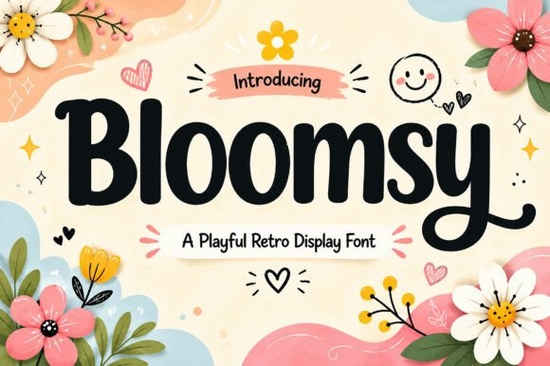
If you're looking for a font that brings a playful and charming vibe to your designs, Bloomsy Font is a great choice. This retro display font is designed to add warmth, charm, and personality to any creative project, making it perfect for a variety of uses.
Why Choose Bloomsy Font for Your Creative Projects?
Bloomsy is all about bringing a friendly and handcrafted feel to your work. Its bold rounded shapes, smooth curves, and unique character details make it stand out. Whether you're working on a logo, branding materials, or social media graphics, this font adds a sweet and cheerful touch that can make your designs more approachable and memorable.
Perfect for a Variety of Creative Uses
Bloomsy is versatile and can be used in many different projects. Here are some of the areas where it shines:
- Logo Design: Create eye-catching logos that leave a lasting impression.
- Branding & Visual Identity: Develop a consistent and appealing brand identity.
- Packaging Design: Add a playful and inviting touch to product packaging.
- Children’s Products: Perfect for creating fun and engaging designs for kids.
- Greeting Cards & Invitations: Make your cards and invitations stand out with a friendly and cheerful look.
- Social Media Graphics: Enhance your social media presence with visually appealing posts.
- Stickers & Labels: Design cute and memorable stickers and labels for your products.
- Posters & Headlines: Create impactful posters and headlines that grab attention.
- Craft Projects: Ideal for adding a personal and handmade touch to your crafts.
- T-Shirt Designs: Perfect for creating fun and unique t-shirt designs.
Font Features That Make It Easy to Use
Bloomsy comes with several features that make it user-friendly and versatile:
- Uppercase and Lowercase Letters: Offers both uppercase and lowercase letters for flexibility in design.
- Numbers & Punctuation: Includes a full set of numbers and punctuation marks for complete text formatting.
- Multilingual Support: Supports multiple languages, making it accessible for a global audience.
- PUA Encoded: Access special characters and glyphs easily, even in software that doesn’t support OpenType features.
How Does Bloomsy Compare to Other Fonts?
When choosing a font, it's important to consider how it fits with your overall design aesthetic. Here’s how Bloomsy compares to some other popular fonts:
- Doodle Line Font: While Doodle Line has a more whimsical and sketch-like feel, Bloomsy offers a cleaner, more polished look with its bold and rounded shapes.
- Barbie Vintage Font: Barbie Vintage has a more elegant and classic style, whereas Bloomsy is more playful and modern.
- Brick Stacked Font: Brick Stacked is more geometric and structured, while Bloomsy has a softer, more organic feel.
- Retro Holly Font: Retro Holly has a more traditional and vintage look, but Bloomsy is more contemporary and playful.
- Cowboy Block Font: Cowboy Block is more rugged and masculine, while Bloomsy is more friendly and approachable.
Tips for Using Bloomsy Font Effectively
To get the most out of Bloomsy, here are some practical tips:
- Combine with Simpler Fonts: Use Bloomsy for headings and titles, and pair it with a simpler, more readable font for body text.
- Play with Colors: Experiment with different color schemes to enhance the playful and cheerful nature of the font.
- Use for Special Occasions: Consider using Bloomsy for special occasions like birthdays, holidays, and other celebrations where a cheerful and friendly tone is needed.
- Test on Different Backgrounds: Try Bloomsy on various backgrounds to see how it looks and feels in different contexts.
Final Thoughts
Bloomsy Font is a delightful and versatile option for anyone looking to add a playful and charming touch to their creative projects. Its bold, rounded shapes and friendly feel make it a great choice for a wide range of uses, from logos and branding to social media graphics and craft projects. Give it a try and see how it can bring a new level of warmth and personality to your designs.